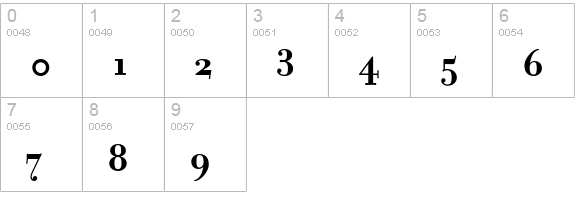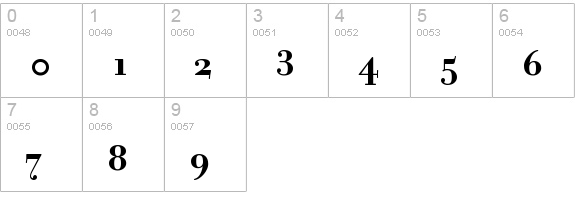
Filosofia-Bold is a strong, high-contrast variant in the Filosofia typeface family \xE2\x80\x94 well suited to headlines, attention-grabbing titles, and strong calls-to-action.
Filosofia-Bold font is a bold and striking typeface that exudes elegance and sophistication. With its clean lines and modern aesthetic, this font is perfect for making a bold statement in any design project. Whether you're looking to create eye-catching headlines or sleek branding materials, Filosofia-Bold is sure to impress. What sets Filosofia-Bold apart is its versatility and readability, making it suitable for a wide range of applications. From editorial design to advertising campaigns, this font will elevate your work to new heights. Its bold weight commands attention while maintaining a sense of refinement and style. Best of all, Filosofia-Bold is available for free download at FontsMarket.com. So, whether you're a seasoned designer or just starting out, you can access this stunning font without breaking the bank. Don't miss out on the opportunity to add Filosofia-Bold to your font collection and take your designs to the next level.